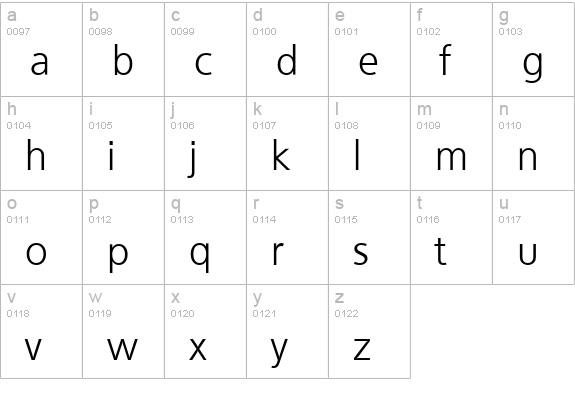
QuebecSerial-Light-Regular is a refined, elegant variant in the QuebecSerial typeface family \xE2\x80\x94 well suited to elegant body text, refined sub-headings, and luxury branding.
QuebecSerial-Light-Regular font is a modern and elegant typeface perfect for various design projects. With its clean lines and sophisticated aesthetic, this font exudes professionalism and style. The sleek and legible letterforms make it ideal for both digital and print applications. What makes QuebecSerial-Light-Regular font even more appealing is that it is available for free download at FontsMarket.com. This means you can easily access this high-quality font without any cost, making it a valuable addition to your font library. Whether you are working on branding, editorial design, or any other creative project, QuebecSerial-Light-Regular font is sure to elevate your work with its timeless charm and versatility. Download it today and start creating stunning designs with ease.